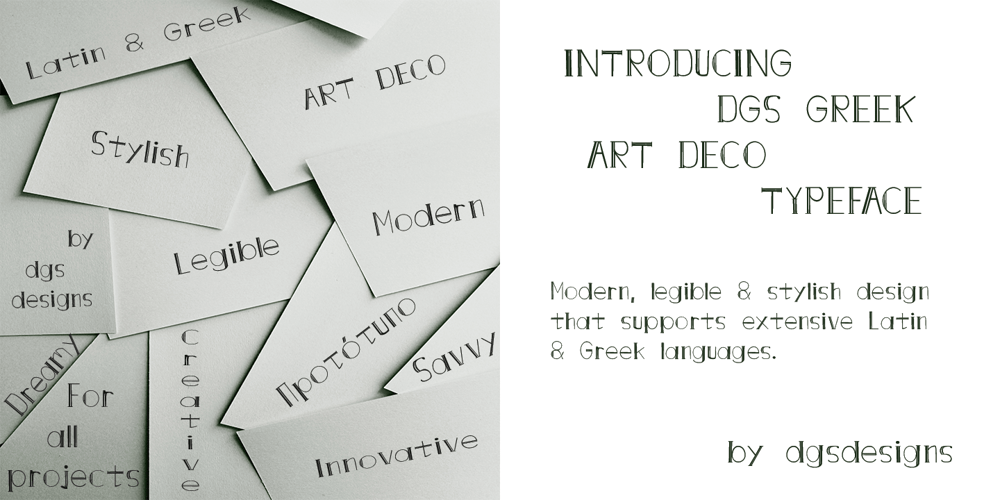
DGS Art Deco Greek Font Family was designed by Debbie Sinis and published by dgsdesigns. DGS Art Deco Greek contains 4 styles and family package options. DGS Art Deco Greek is a unique typeface breaking all boundaries available in Latin and Greek scripts. It can be used in a wide range of projects including invitations, theatre and cinematic productions, branding, logos , adverts and much more.